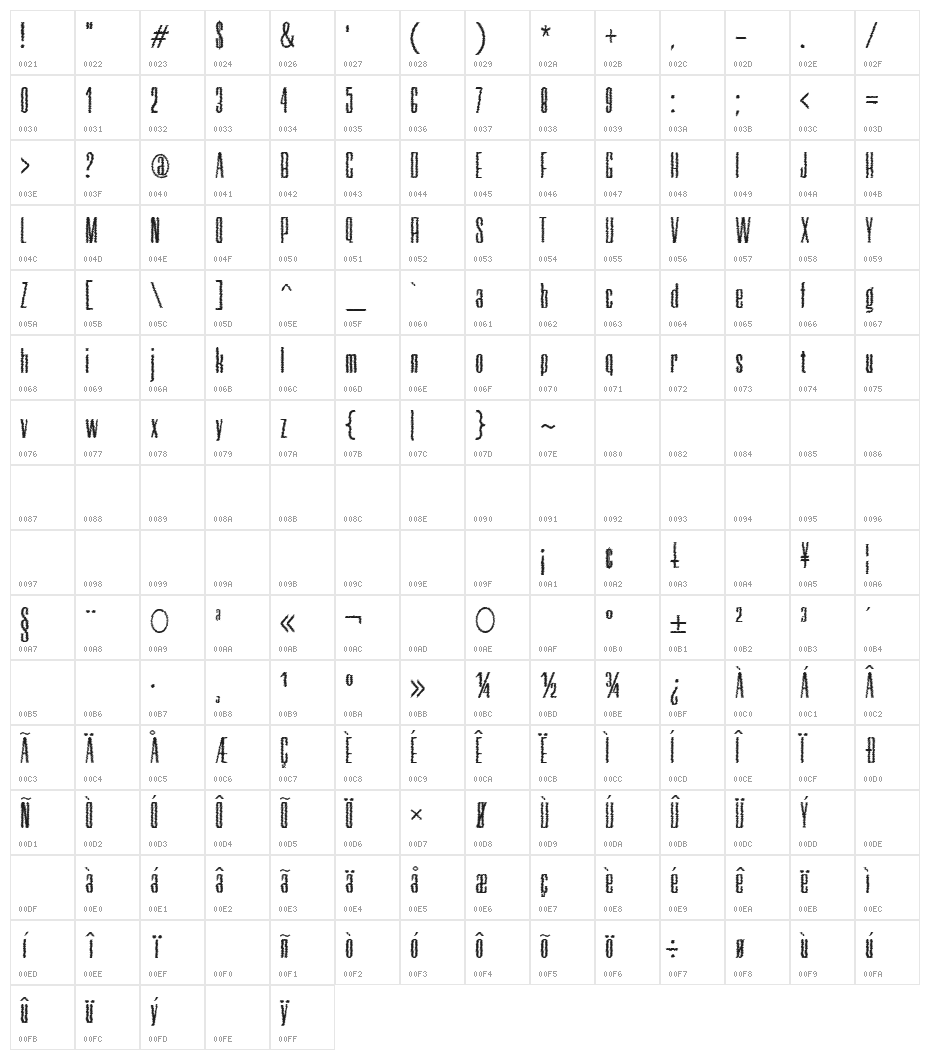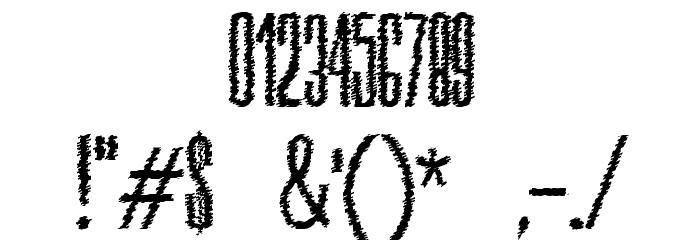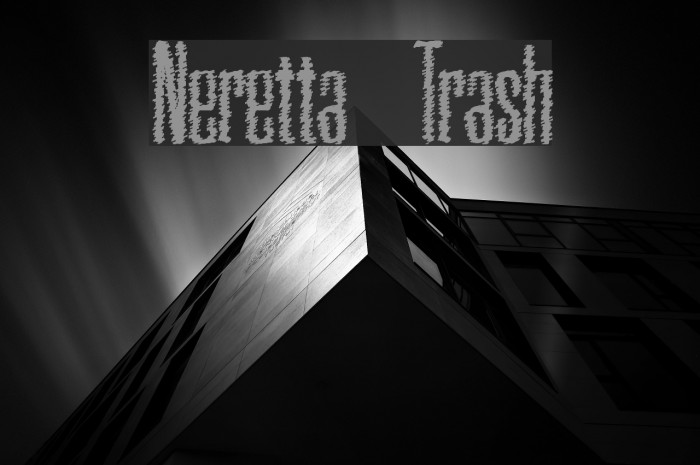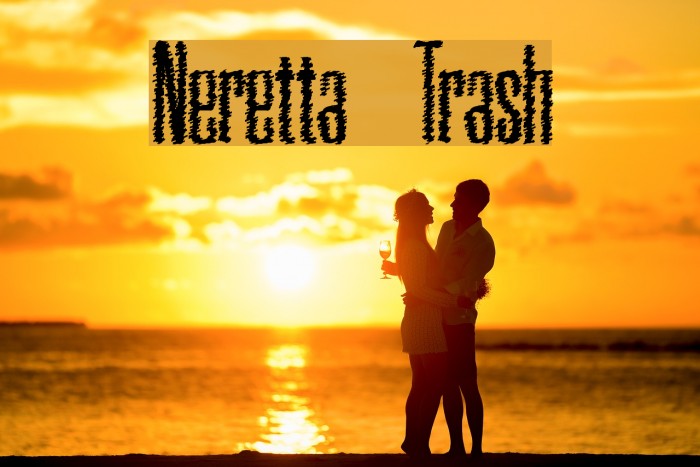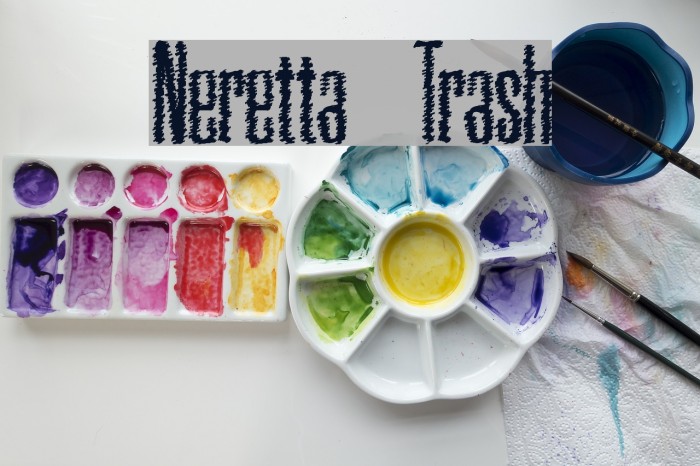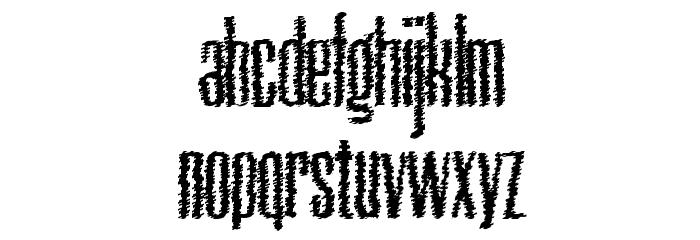
Neretta Trash Font
Neretta Trash Description
This font features a bold and distressed style, characterized by its rough, textured edges that give it a grunge-like appearance. The uppercase and lowercase letters maintain a consistent height, with a slightly condensed width that enhances its boldness. The numerals and special characters follow the same rugged aesthetic, making them stand out with a unique flair. The overall design is eye-catching and unconventional, perfect for projects that require a touch of edginess and creativity. Its distinct style makes it suitable for artistic and alternative designs.
| Width | Condensed |
| Overall Style | Grunge, Artistic |
| Use Case | Headlines, Logos, Artistic designs |
| Proposed Projects | Ideal for album covers, posters, street art designs, and edgy branding projects. |